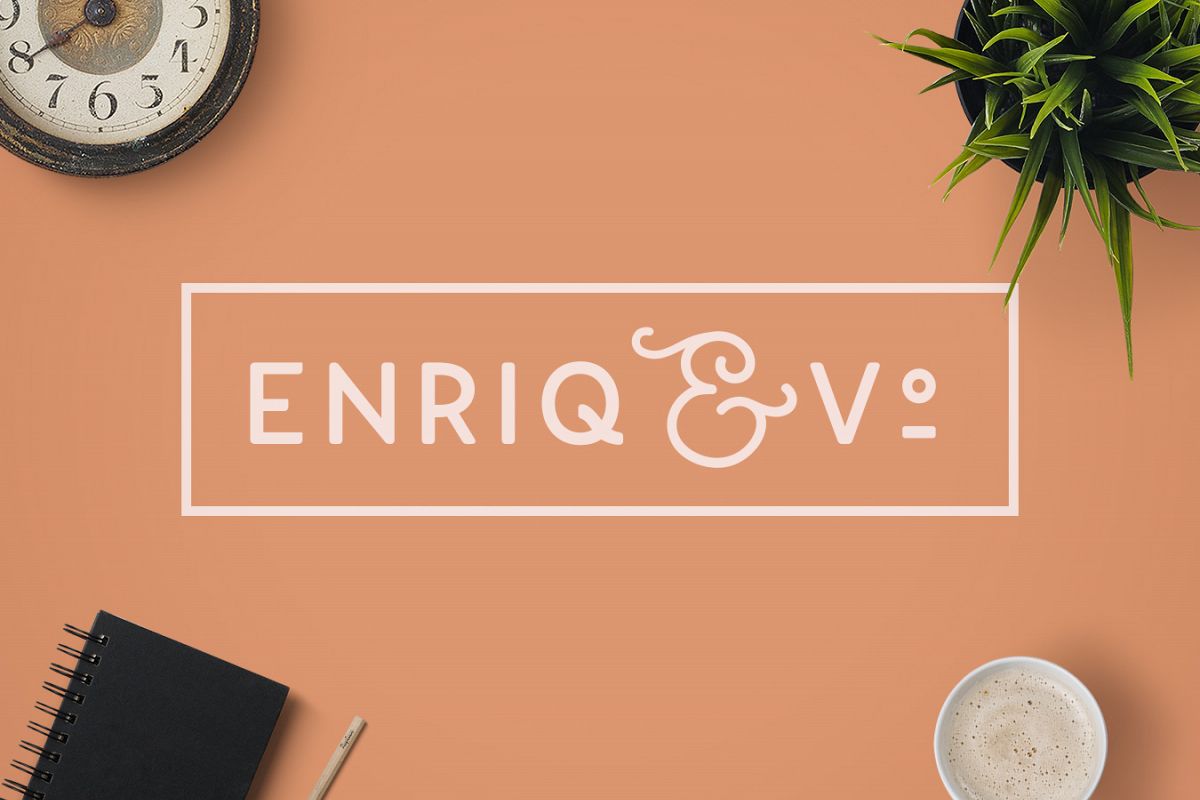
Enriq Round Sans Serif Font
Enriq Round Sans v1.0is an Elegant Sans serif typeface with smooth rounded edge style, Fashionable, Classy but still Modern. Designed with powerful opentype features in mind, and some nuances aid in legibility and give it a harmonious appearance for both texts and headlines. Perfect for branding, editorial and signage, works great for bigger applications. Each weight includes extended language support, ligatures and more. Perfectly suited for graphic design and any display use. It could easily work for web, signage, Software Interfaces, corporate as well as for editorial design.Features: Six styles available
• Regular
• Light
• Thin
• Medium
• Bold
• Black